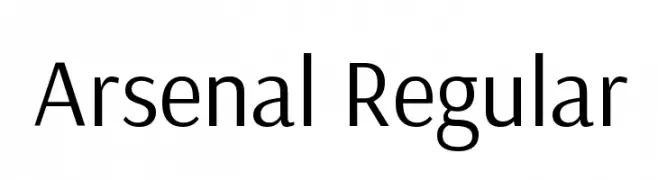
Arsenal Regular Font
A modern sans-serif font with clean lines and excellent readability.
Bavarian Outline PERSONAL Outline Font
An ornate Blackletter-style font with outlined characters and decorative flourishes.